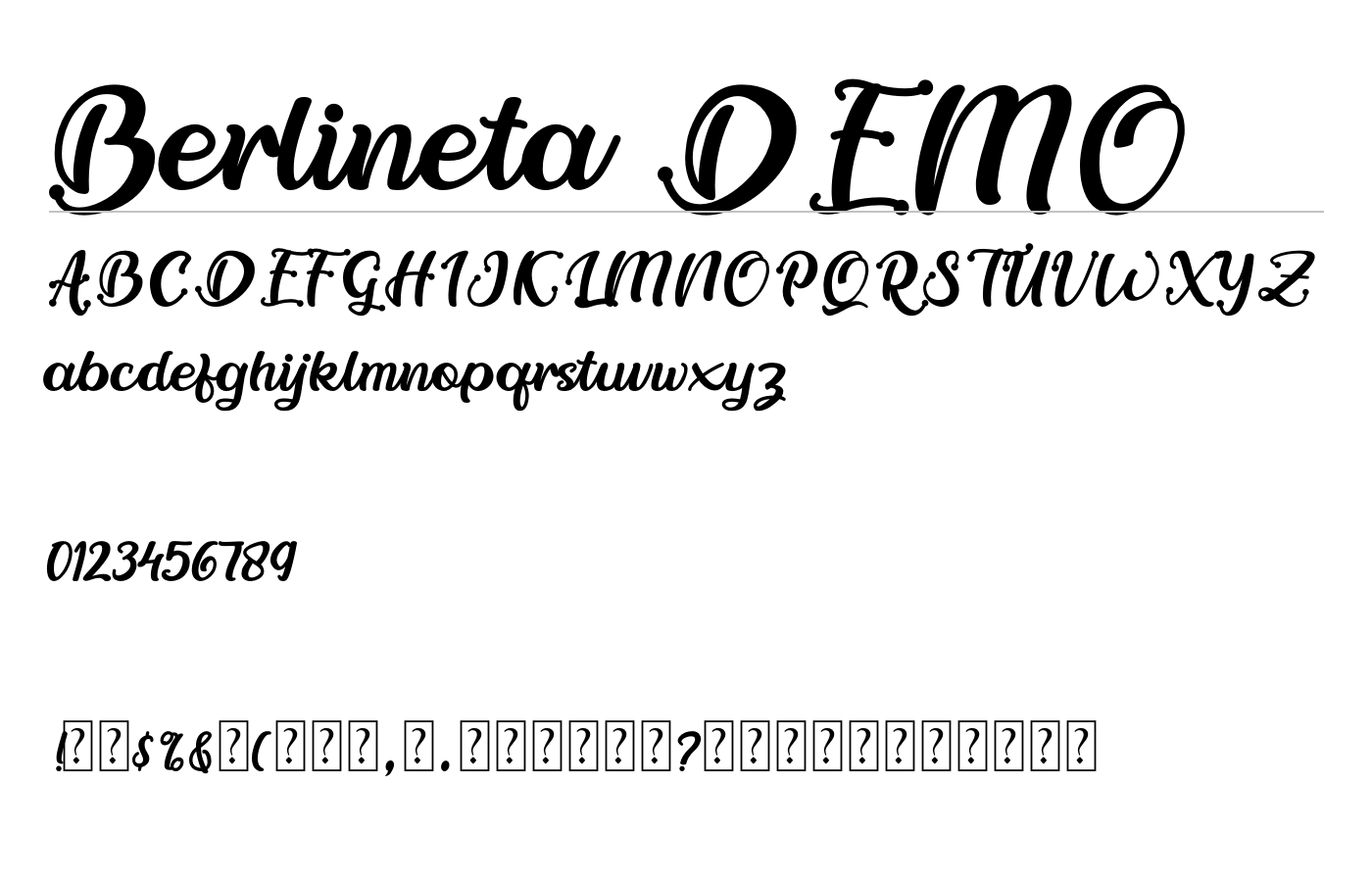
Berlineta DEMO is a lively script font characterized by smooth, flowing strokes and elegant curves that give it a playful yet refined personality. With its medium weight and well-balanced, rounded letterforms, it works well for eye-catching headlines, branding, and invitations that seek a personal and friendly touch. This font’s charming, handwritten style is perfect for adding warmth and creativity to packaging, logos, and editorial designs.
Berlineta DEMO Font
About Berlineta DEMO Font
| Font family | Berlineta DEMO Font |
| Designer | E. Nurcahyo |